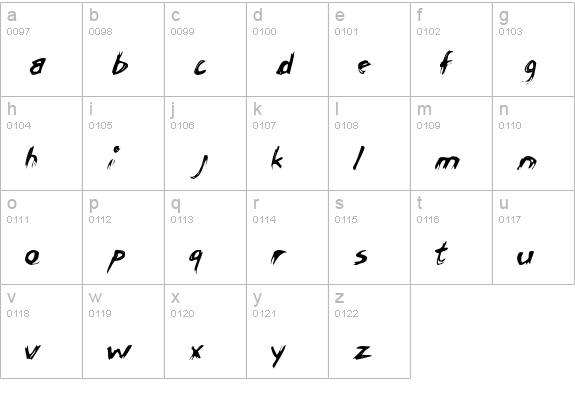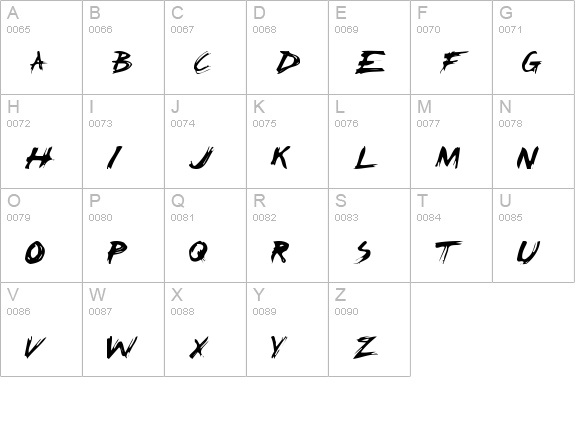
ChickenScratchAOE is a charming and whimsical font that brings a playful touch to any project. Its hand-drawn style gives off a unique and quirky vibe, perfect for adding a fun and lighthearted feel to designs. With its uneven lines and imperfect edges, this font captures the essence of handwritten chicken scratch notes, making it ideal for projects that require a touch of creativity and personality. What makes ChickenScratchAOE even better is that it is available for free download at FontsMarket.com. This means you can easily access this delightful font and use it in your designs without any cost. Whether you're working on a craft project, a greeting card, or a social media graphic, ChickenScratchAOE is sure to add a touch of whimsy and charm. Download it today and let your creativity soar!